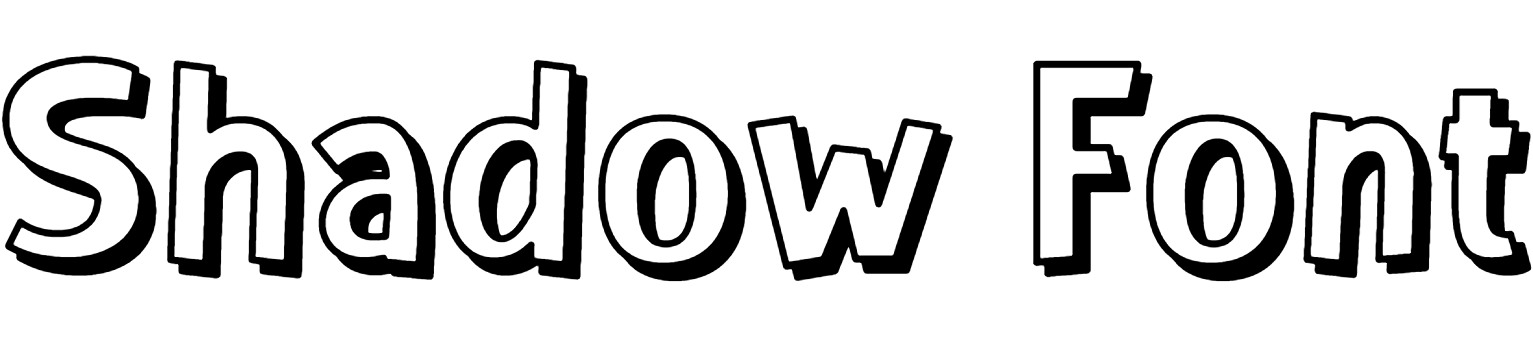
Shadow
Shadow is a cartoon font (2019). It has a cheerful, hand-drawn look that makes people smile before they even read the words. You can download it for free and test it with your own words in the preview above.
What You Can Type With Shadow
With complete upper and lowercase letters and all ten digits, Shadow is ready for real wording, not just a single headline. Everyday marks like &, !, ? and @ are there too. There are no accented letters like é or ñ, so it's best kept to English text.
Where Shadow Works Best
Designers usually reach for fonts like Shadow when they're making kids' books, birthday invites and fun YouTube thumbnails. The file has no kerning data, so in logos and big titles check pairs like AV, To and Wa and tighten the spacing by hand. Cartoon fonts are great for short, fun lines. If you place it over a busy photo, add a thick outline or a drop shadow so it stays readable.